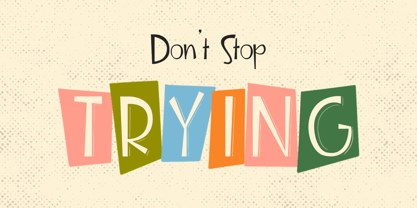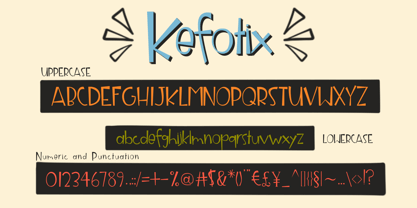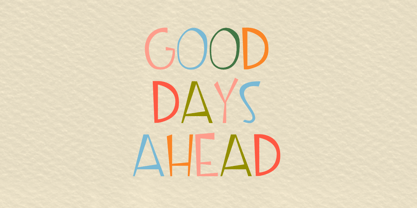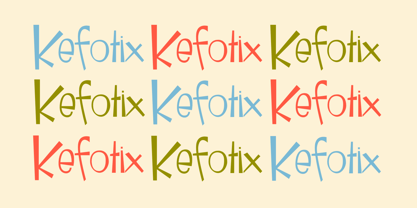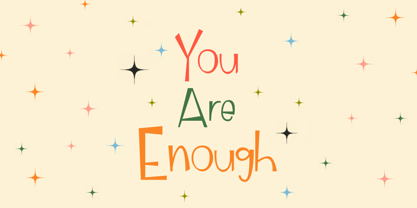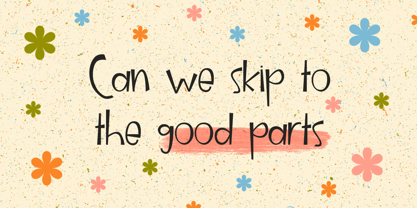
Kefotix
von Khaiuns
Die Schriftfamilie Kefotix wurde von Khair Unnas entworfen und von Khaiuns veröffentlicht. Kefotix enthält 1 Stile.
Kefotix is a charming and lively font that captures the innocent, carefree strokes of children's handwriting. With its playful curves and uneven forms, this font adds a delightful, youthful touch to any design. Whether you're working on kids' party invitations, storybooks, educational materials, or creative crafts, Kefotix brings a sense of fun and imagination to your projects.
Perfect for, Children’s books, Posters and classroom materials, Toy packaging, Birthday invitations, Scrapbooking, Social media graphics
Kefotix is versatile and easy to use, making it an ideal choice for anyone looking to create designs that feel joyful, fresh, and uniquely personal. Let your creativity run wild with Kefotix!